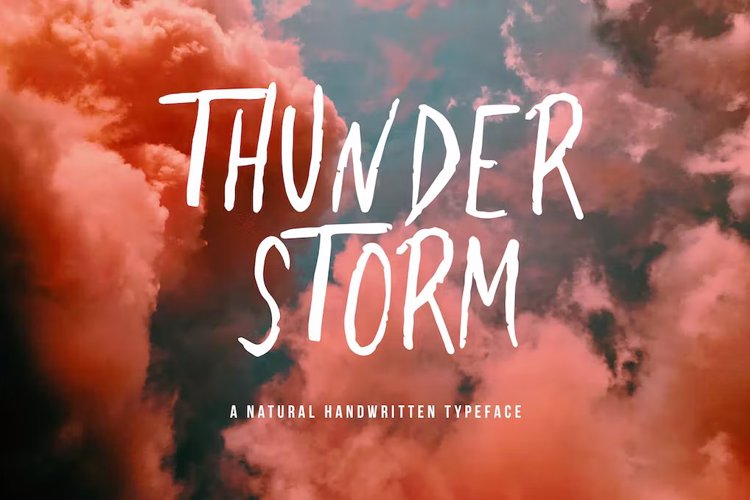
Thunderstorm Font
About Thunderstorm Font
Thunderstorm is all caps handwritten font with brush style, comes with uppercase, alternative lowercase, numerals, and punctuation. This font will be perfect pick for various designs & artworks like social media post, brand type, posters, merchandise, packaging, headlines, merchandises, t-shirt, and many more..
Features:
-Uppercase Letters
-Lowercase alternative Letters
-Numbers and Punctuation